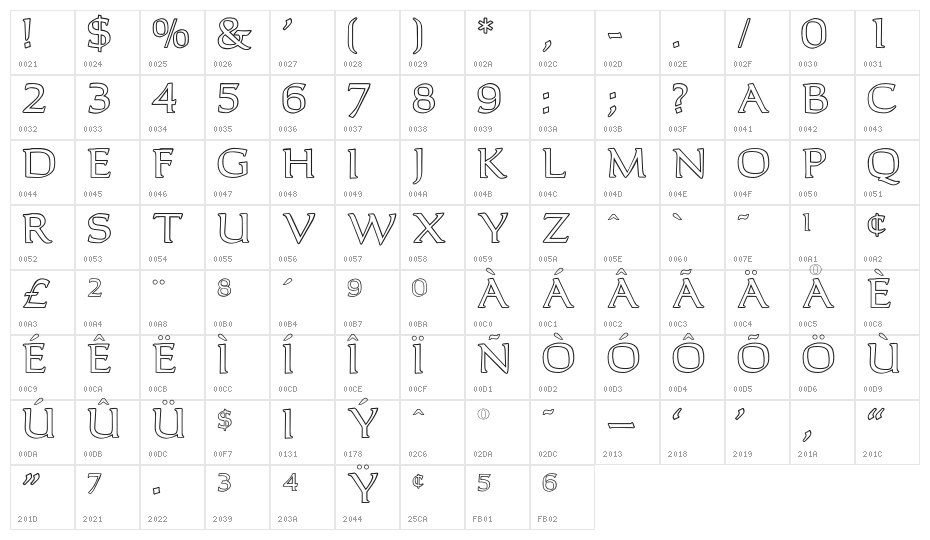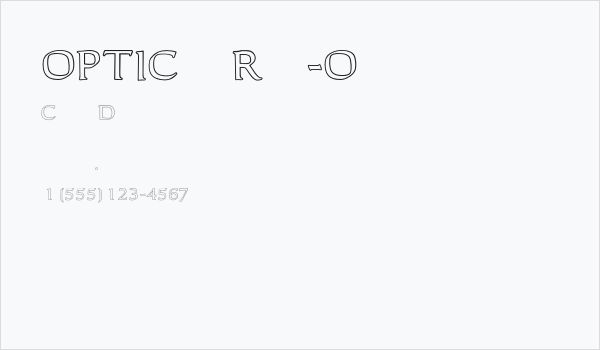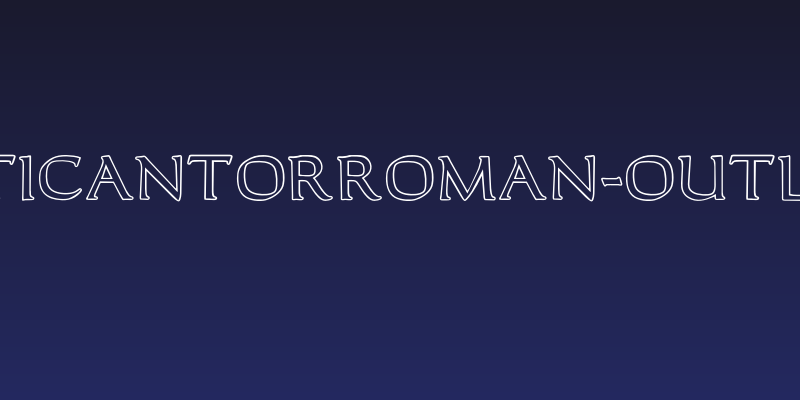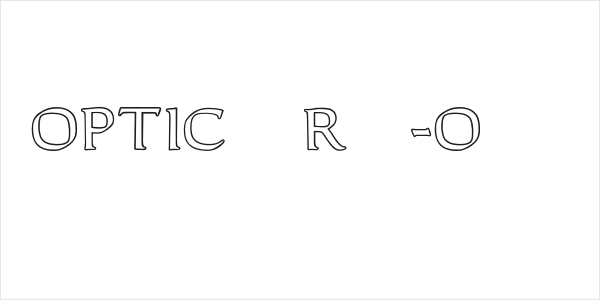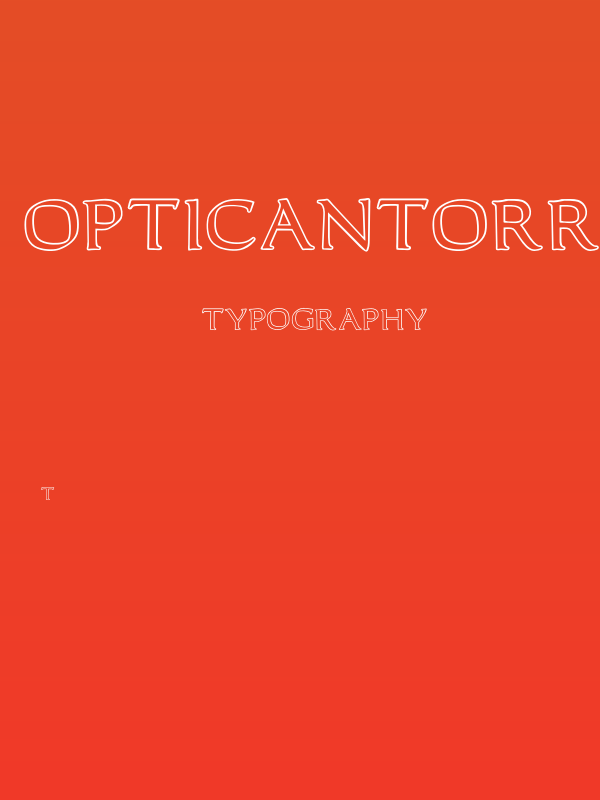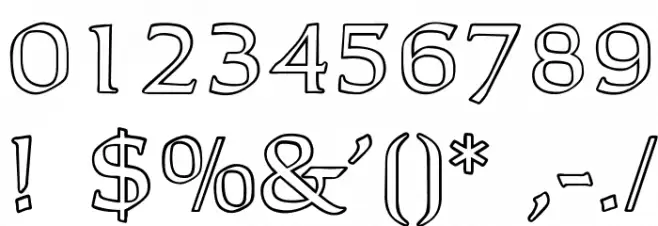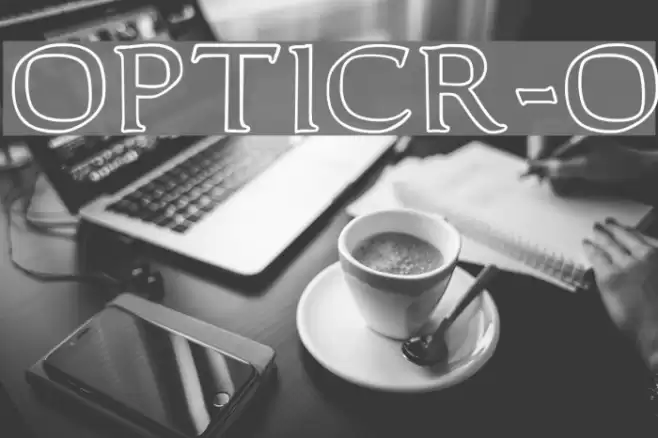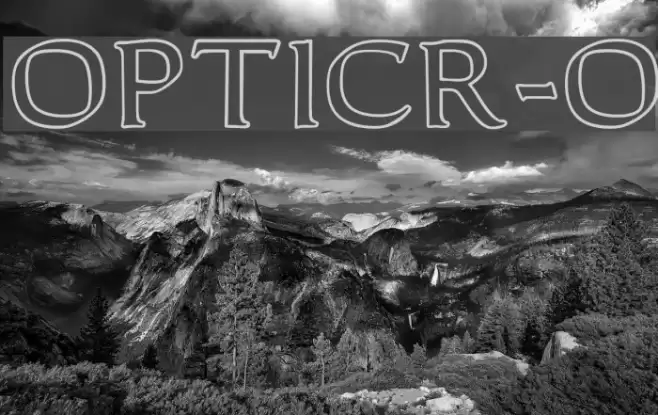
OPTICantorRoman-Outline Font
✎ Serif
| Cas d'utilisation | Headlines, Logos, Decorative text |
| Projets proposés | Ideal for use in branding, headlines, posters, and invitations where a touch of sophistication is desired. |